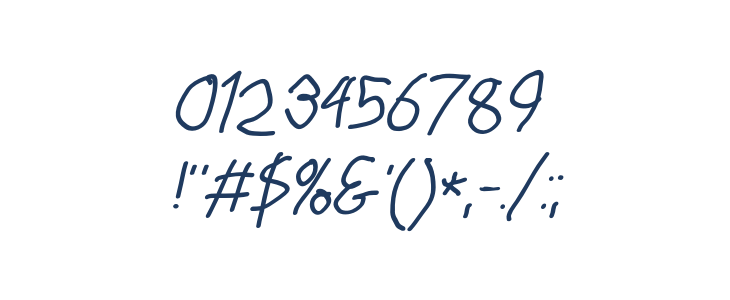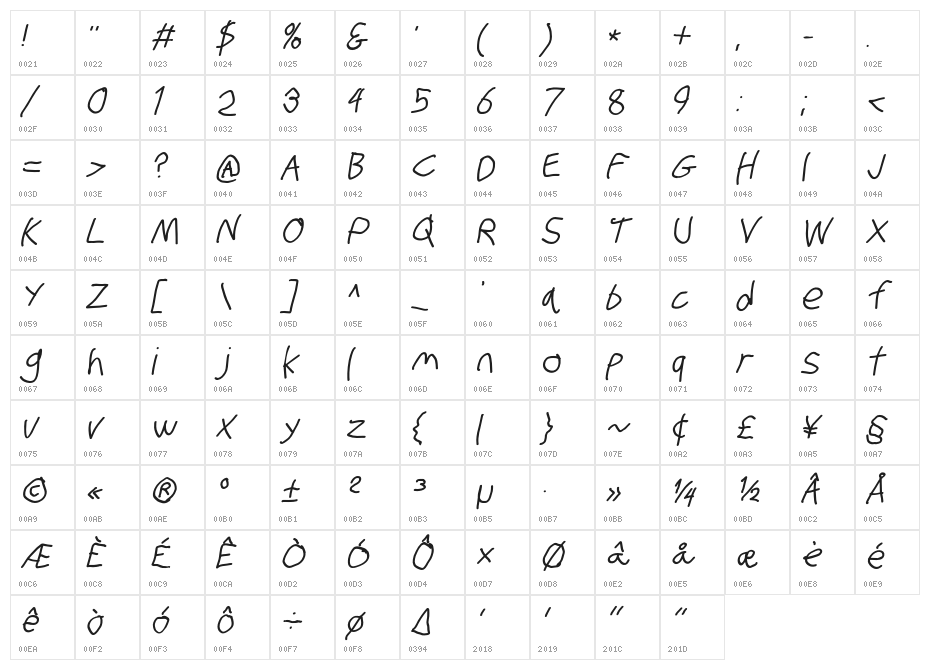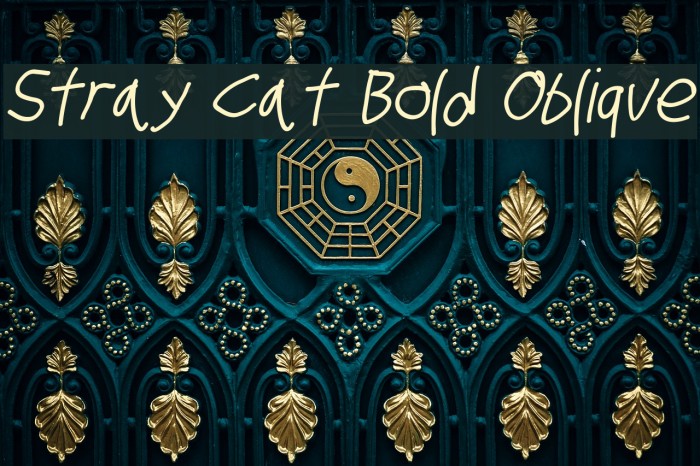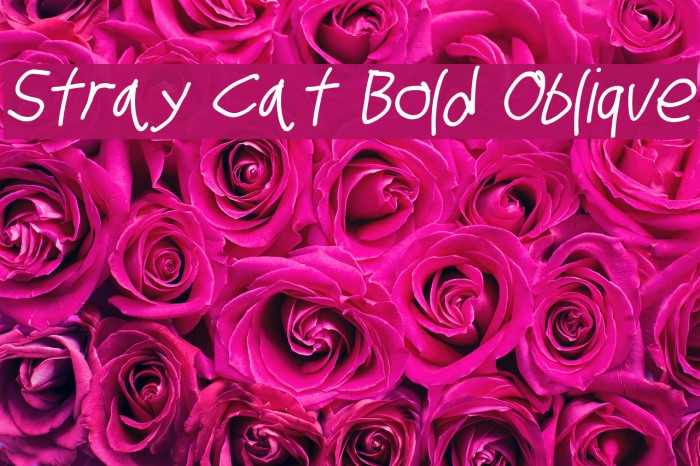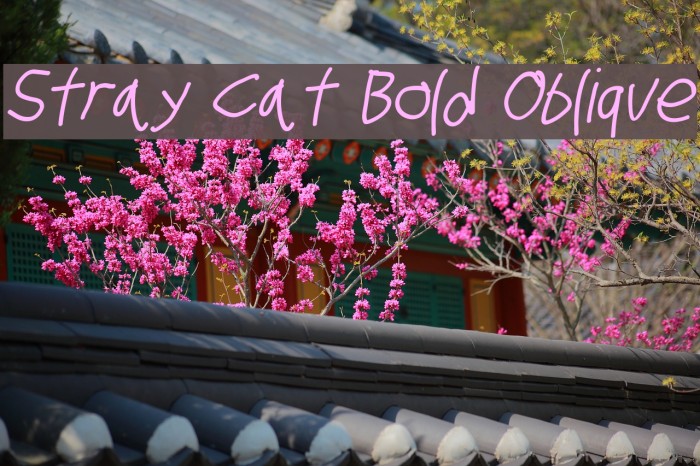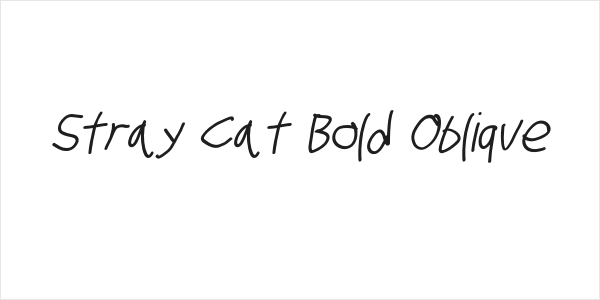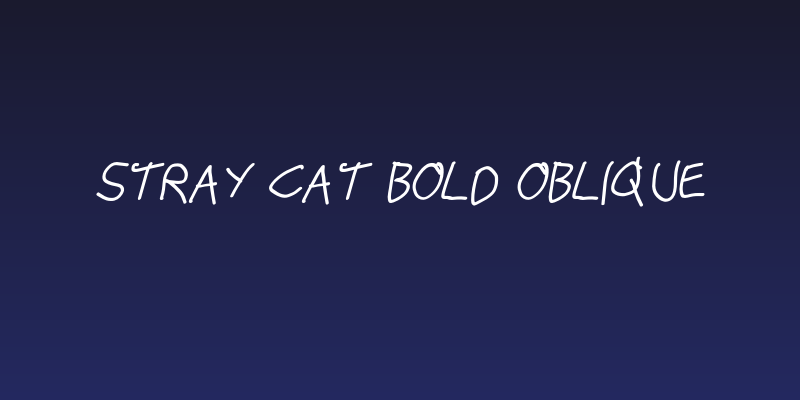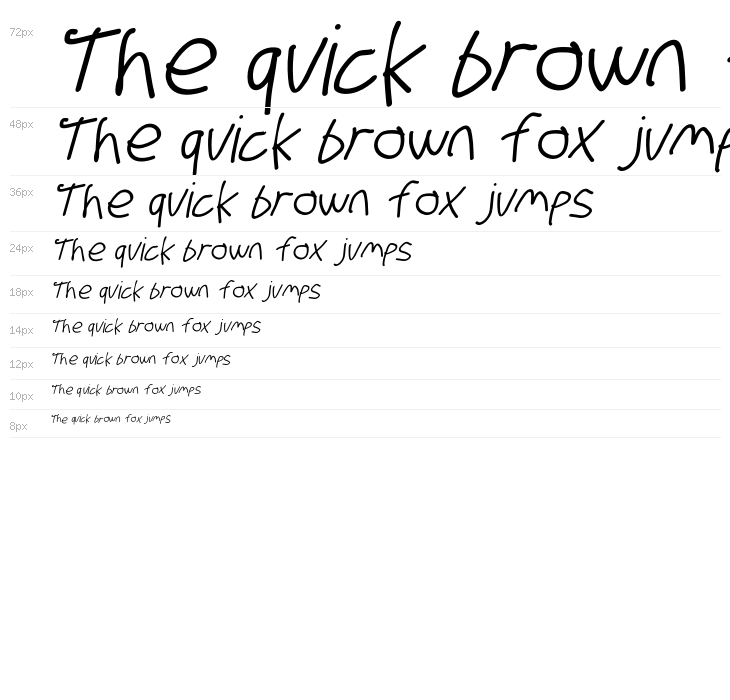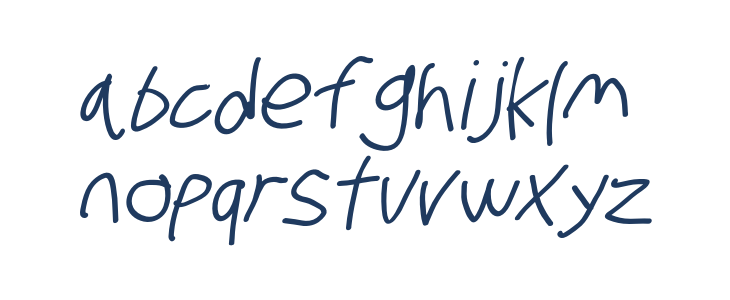
Stray Cat Bold Oblique Font
Stray Cat Bold Oblique Description
This font features a playful and dynamic handwritten style, characterized by its bold and oblique appearance. The letters are slightly slanted, adding a sense of movement and energy. The strokes are thick and consistent, giving the font a bold presence. The characters have a casual, informal feel, reminiscent of quick, expressive handwriting. This style is perfect for projects that require a personal touch or a creative flair. The font maintains readability while offering a unique and artistic aesthetic, making it suitable for various design applications.
| Proposed Projects | Ideal for greeting cards, posters, creative branding, and social media graphics. |